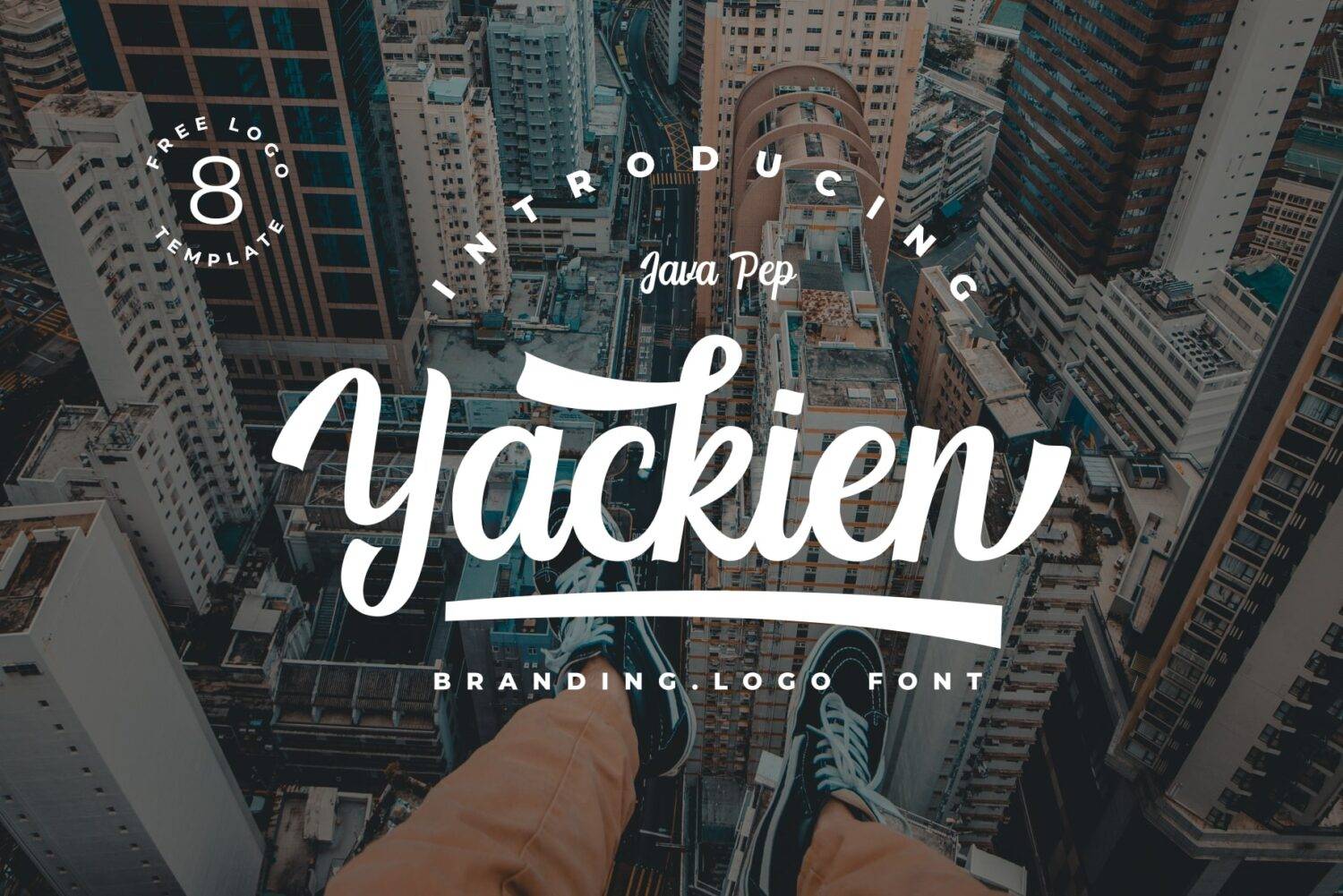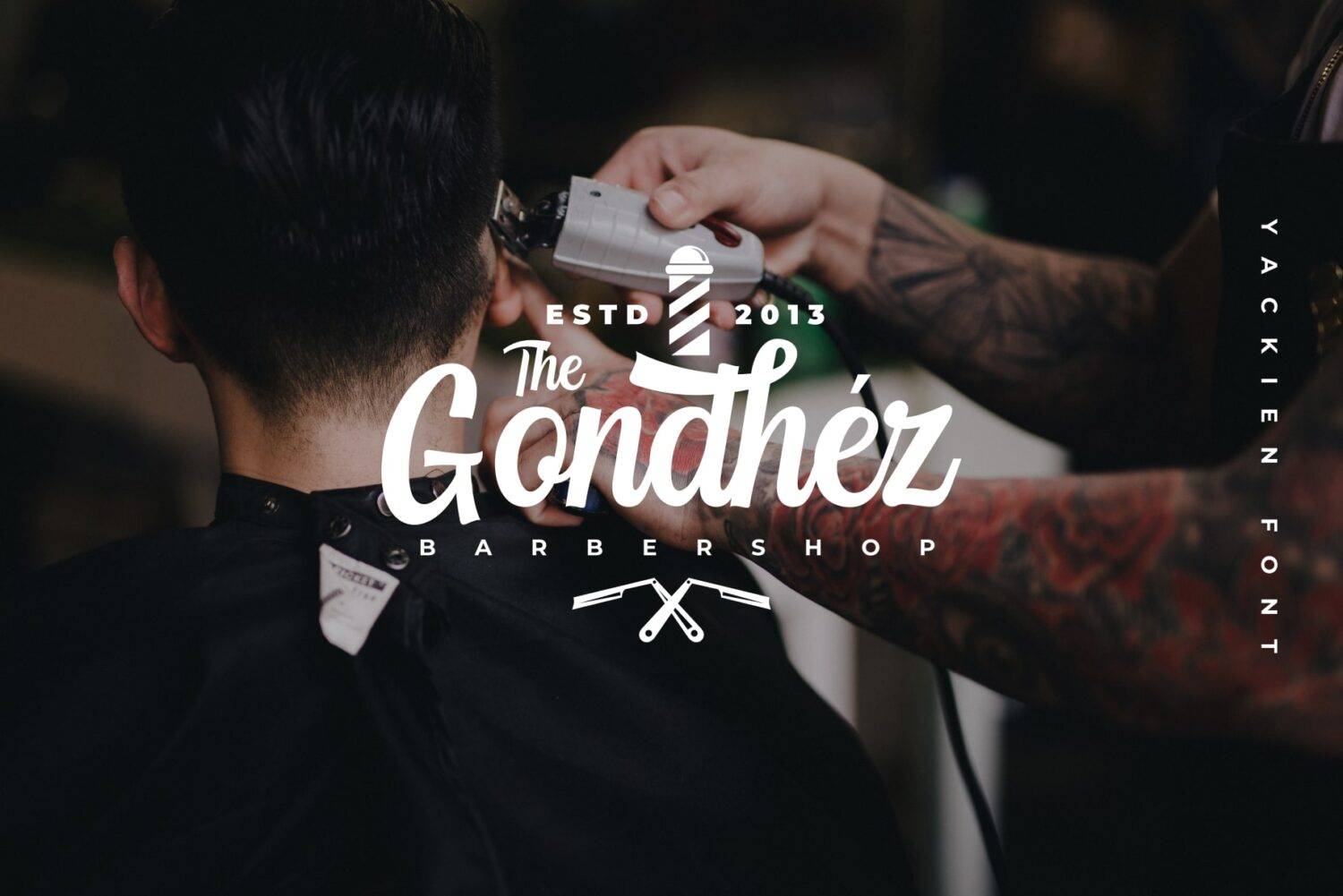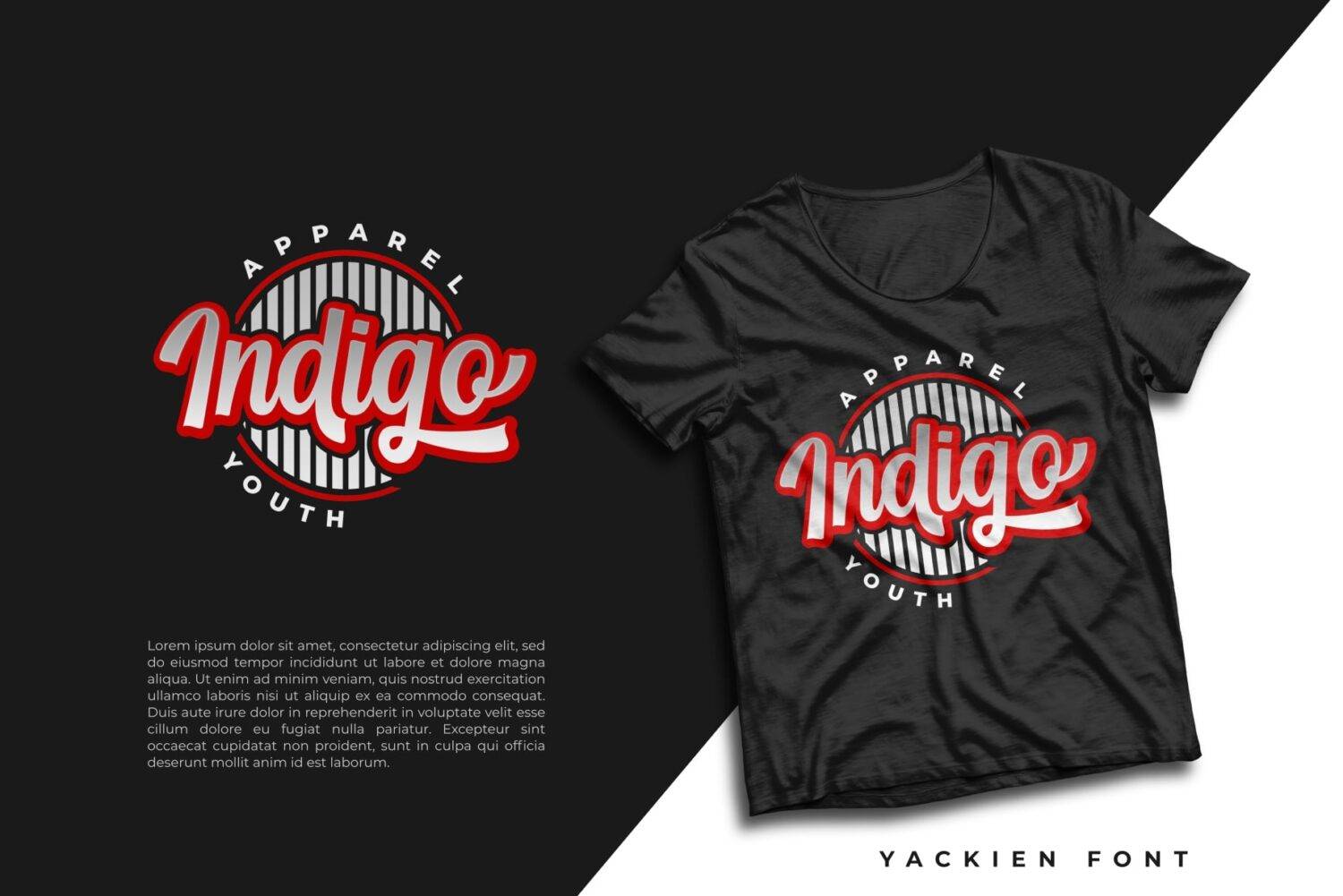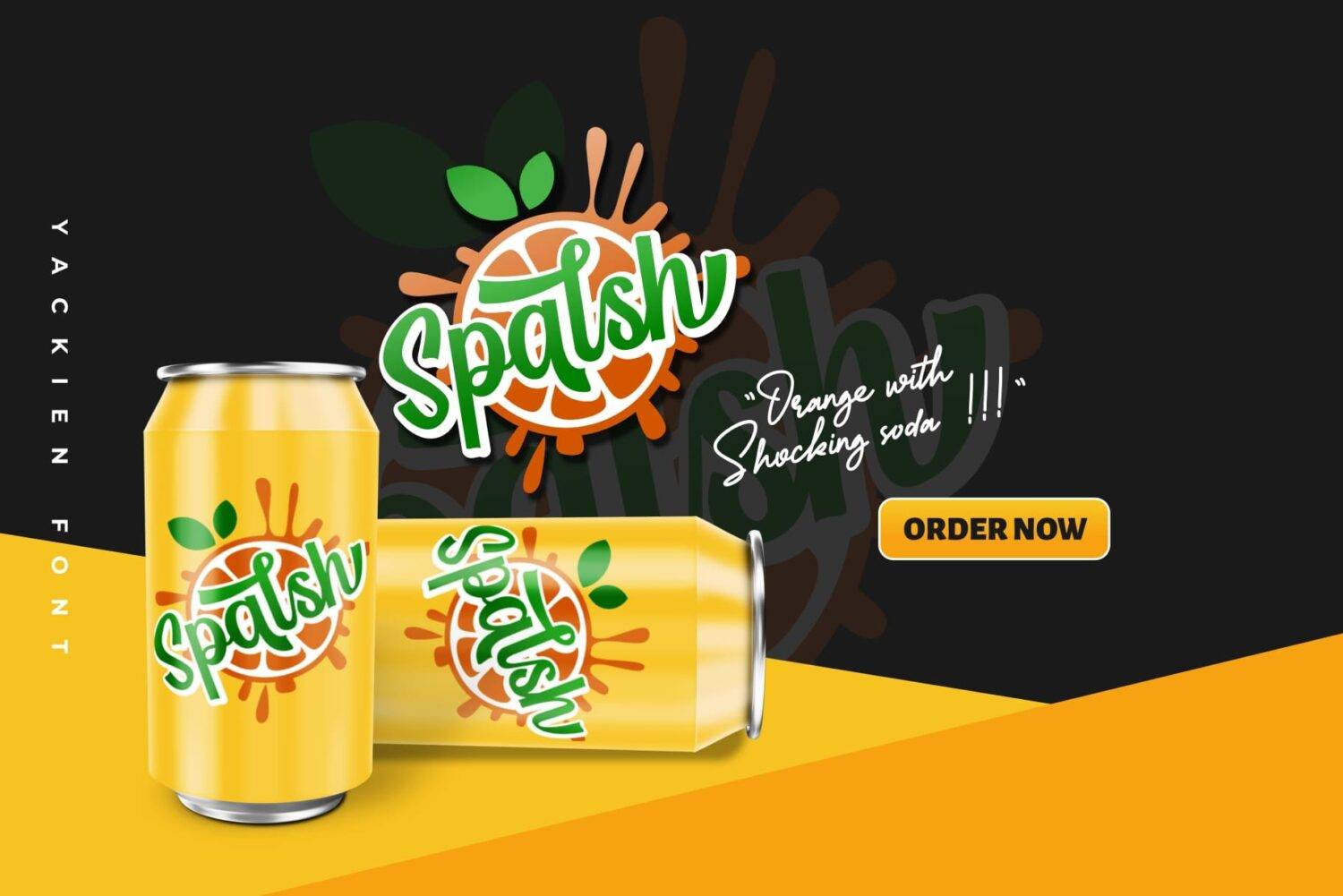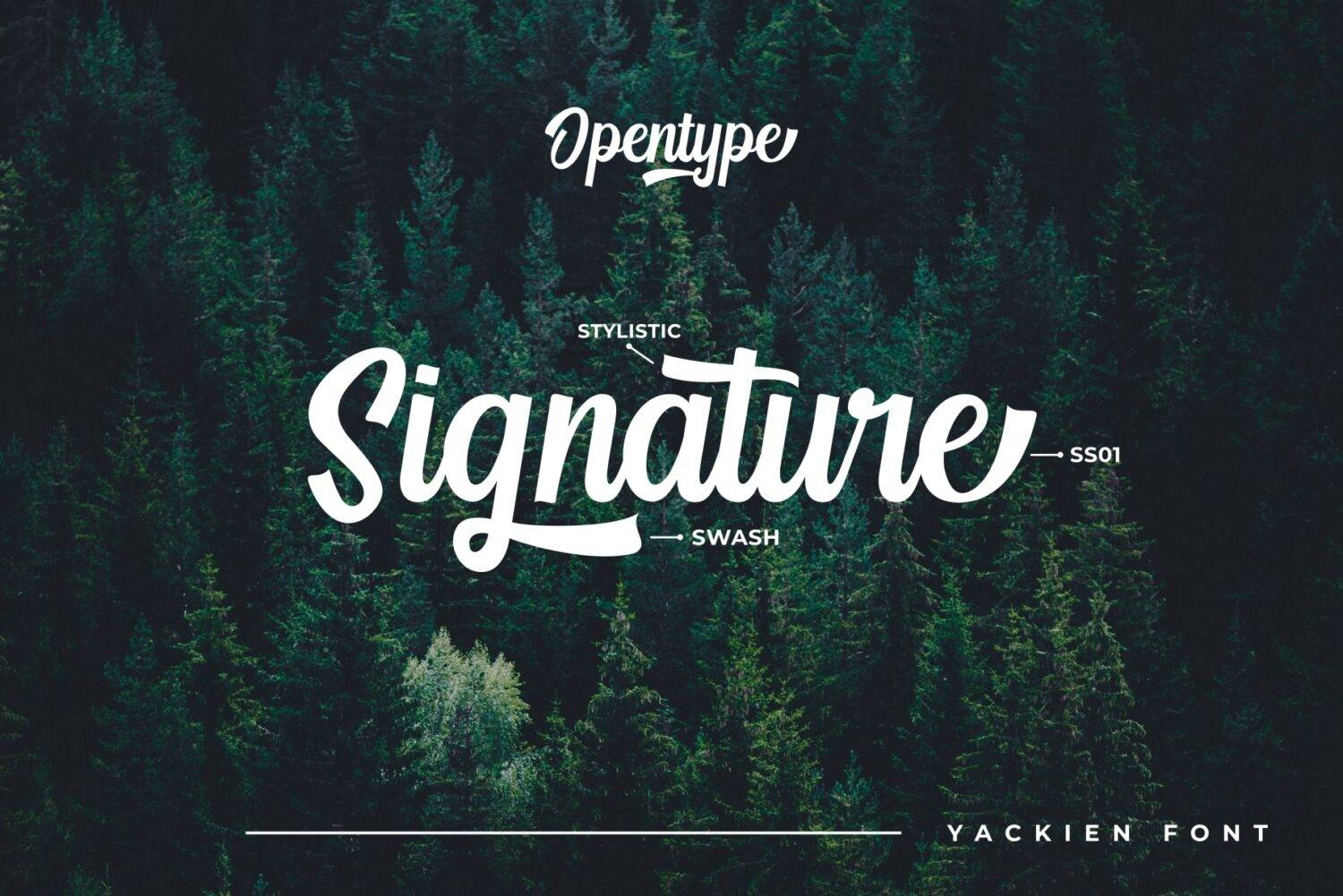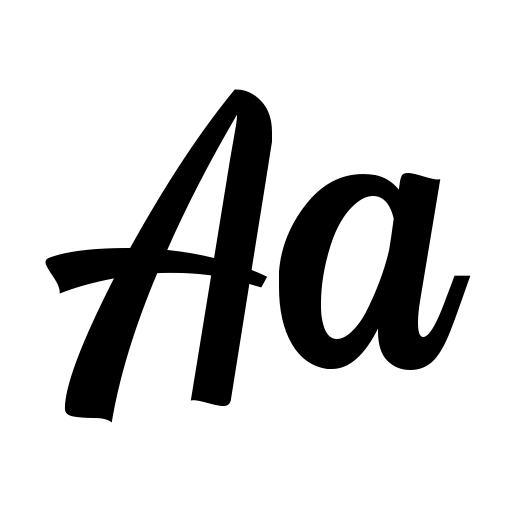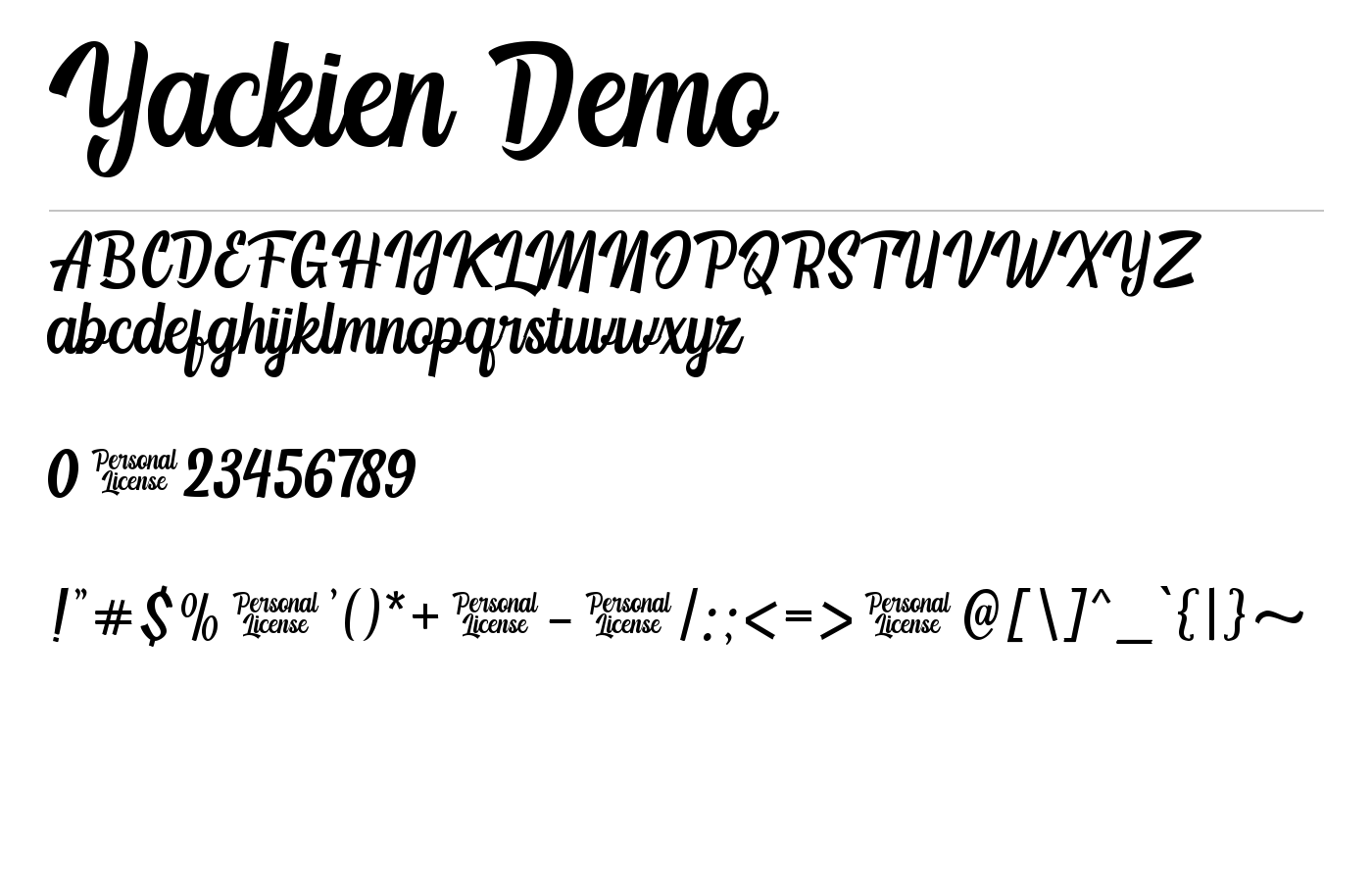
Yackien is a bold, script-style font with a smooth, flowing design that combines elegance and a friendly, approachable feel. Its slightly condensed letterforms and dynamic stroke contrast make it ideal for logos, headlines, and packaging that seek a stylish yet casual vibe. This font works especially well in branding and editorial projects that want to convey warmth and personality without sacrificing readability.
Yackien Font
About Yackien Font